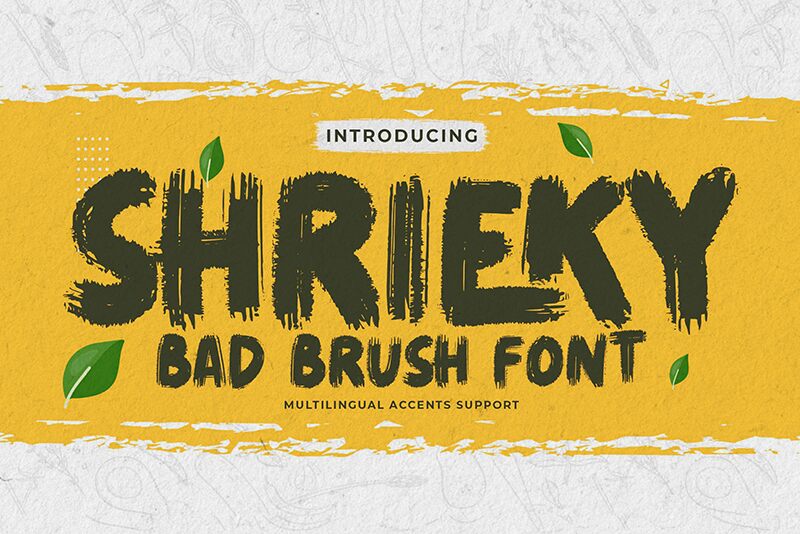
shrieky Regular
Shrieky, designed by the innovative Gassstype studio, is a font that captures the raw energy of spontaneous brush strokes with its extra-bold weight. The font's dynamic and rugged texture brings an edgy and expressive feel to any project. Each letter boasts a unique character, giving off a hand-painted vibe that is both attention-grabbing and aesthetically pleasing.
The assertive style of Shrieky makes it an ideal choice for designs that aim to stand out, such as bold marketing materials, eye-catching headlines, or any creative endeavor seeking an unapologetically bold statement. Its brush-style roots lend a human touch to digital graphics, marrying the worlds of traditional artistry with modern design sensibilities. Whether utilized in graphic tees, album covers or event posters, Shrieky promises to infuse your work with a strong visual impact that resonates with today's audiences.